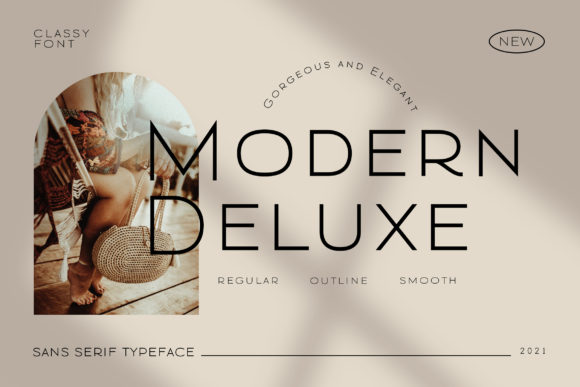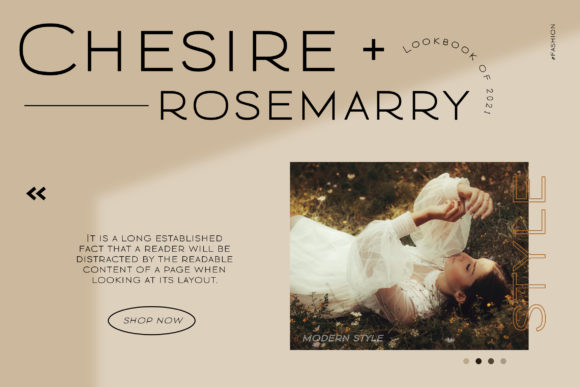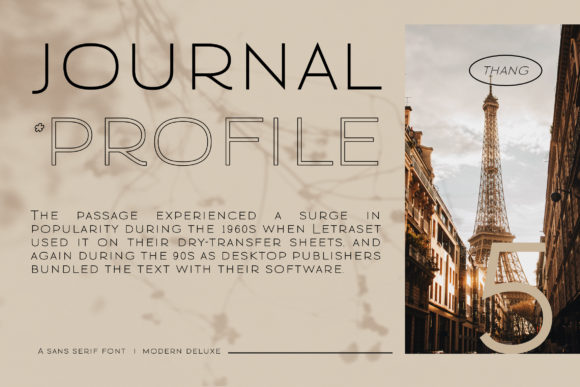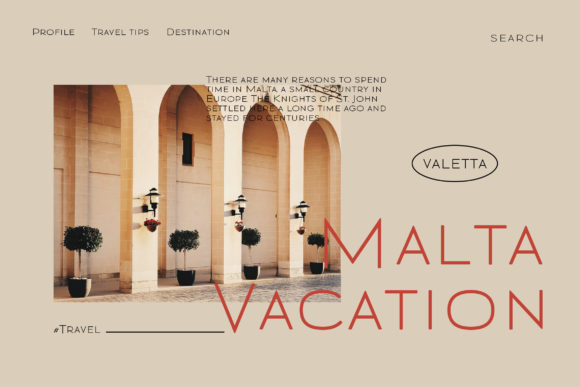
Modern Deluxe Font
About the Modern Deluxe Font
Introducing the Modern Deluxe Font, a beautifully crafted typeface designed to elevate your creative projects. Modern Deluxe is elegant and modern sans serif font. It can easily be matched to an incredibly large set of projects, so add it to your creative ideas and notice how it makes them stand out!
Its clean lines and refined geometry make Modern Deluxe ideal for headlines, logos, and short-form text in branding materials and advertising. It excels in applications requiring a sophisticated and modern aesthetic, such as high-end product packaging or minimalist posters. However, its elegance might not translate well to body text or lengthy paragraphs; its x-height is relatively low, leading to reduced readability in such contexts. Avoid using it for UI elements or applications requiring extensive text blocks.
To complement its refined personality, consider pairing Modern Deluxe with a contrasting, warmer serif like Playfair Display for a touch of classic elegance, or a geometric sans-serif like Montserrat for a more contemporary and balanced feel. A script font like Great Vibes can add a touch of handwritten flair for specific applications, such as signatures or subtle details.
Modern Deluxe projects a sophisticated and confident personality, conveying a sense of modern luxury and understated elegance. The font’s overall energy is refined rather than playful, making it a strong choice for brands that wish to project prestige and quality.
Modern Deluxe Font Usage Examples
Modern Deluxe Font Example